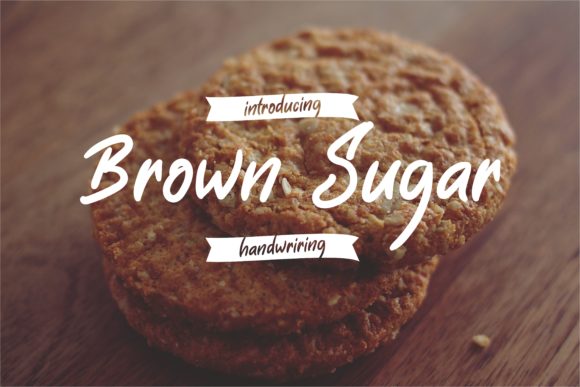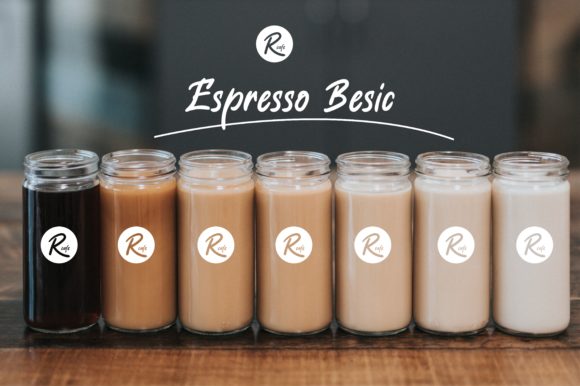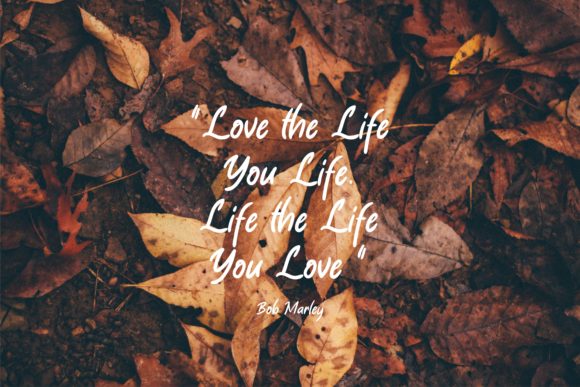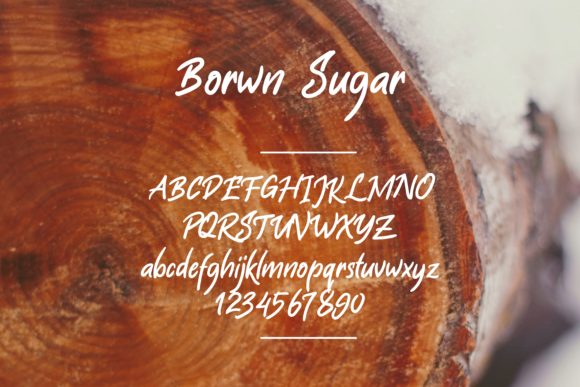
Brown Sugar Font
About Brown Sugar Font
The Brown Sugar is an unique handwritten font. It has a great readability and is perfect for adding a modern look to your designs.
It’s suitable for quotes, magazine layouts, logos, posters, and much more!